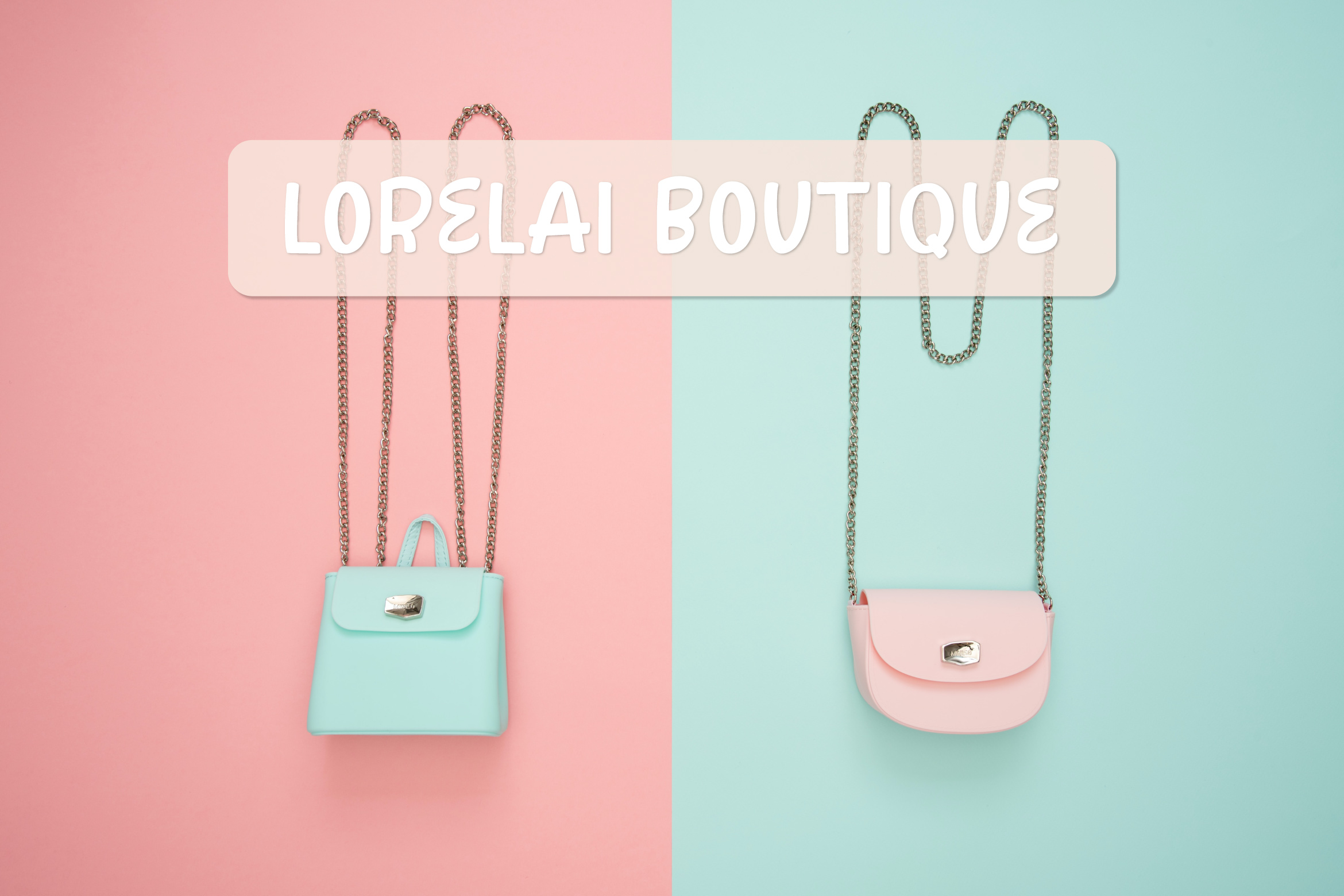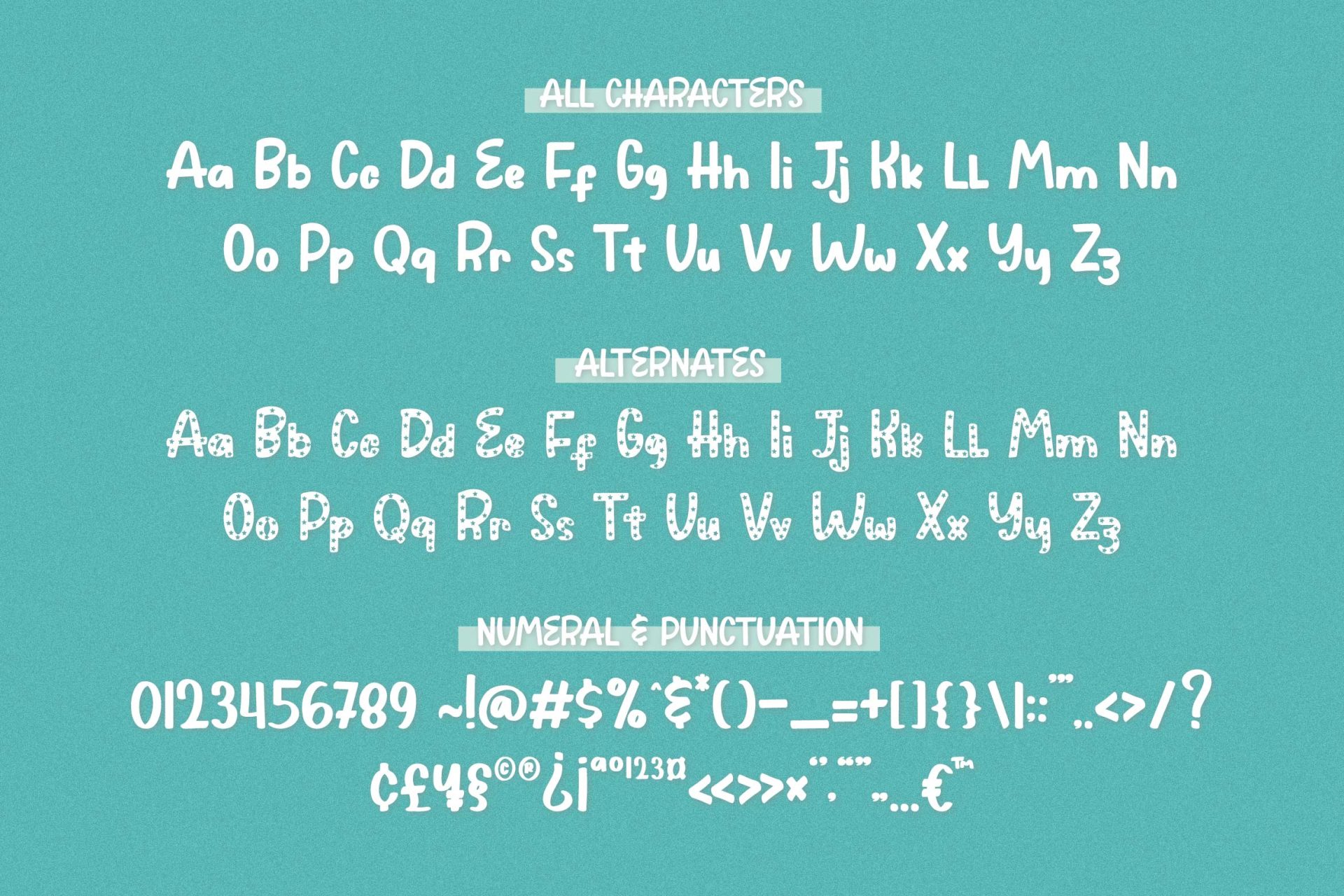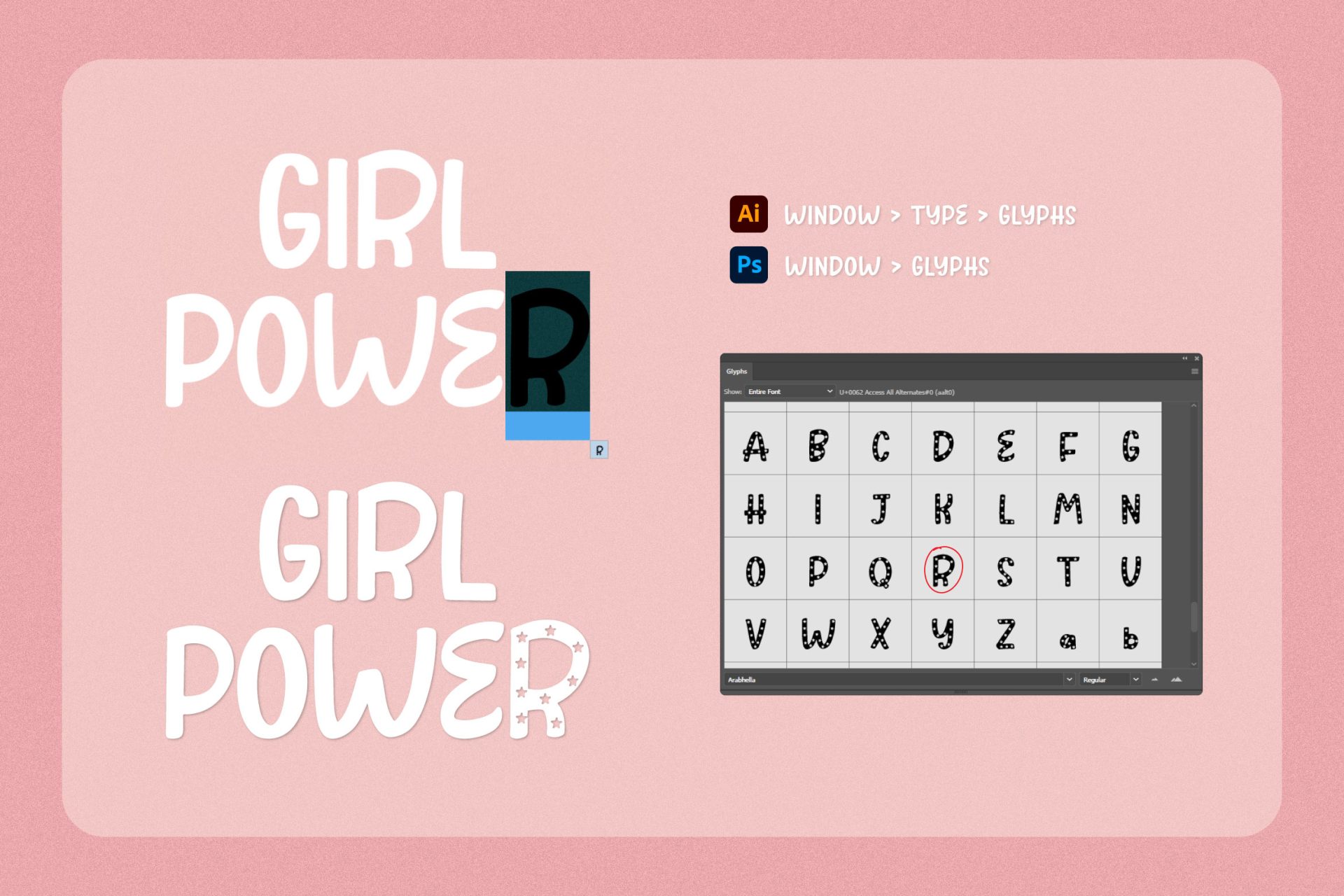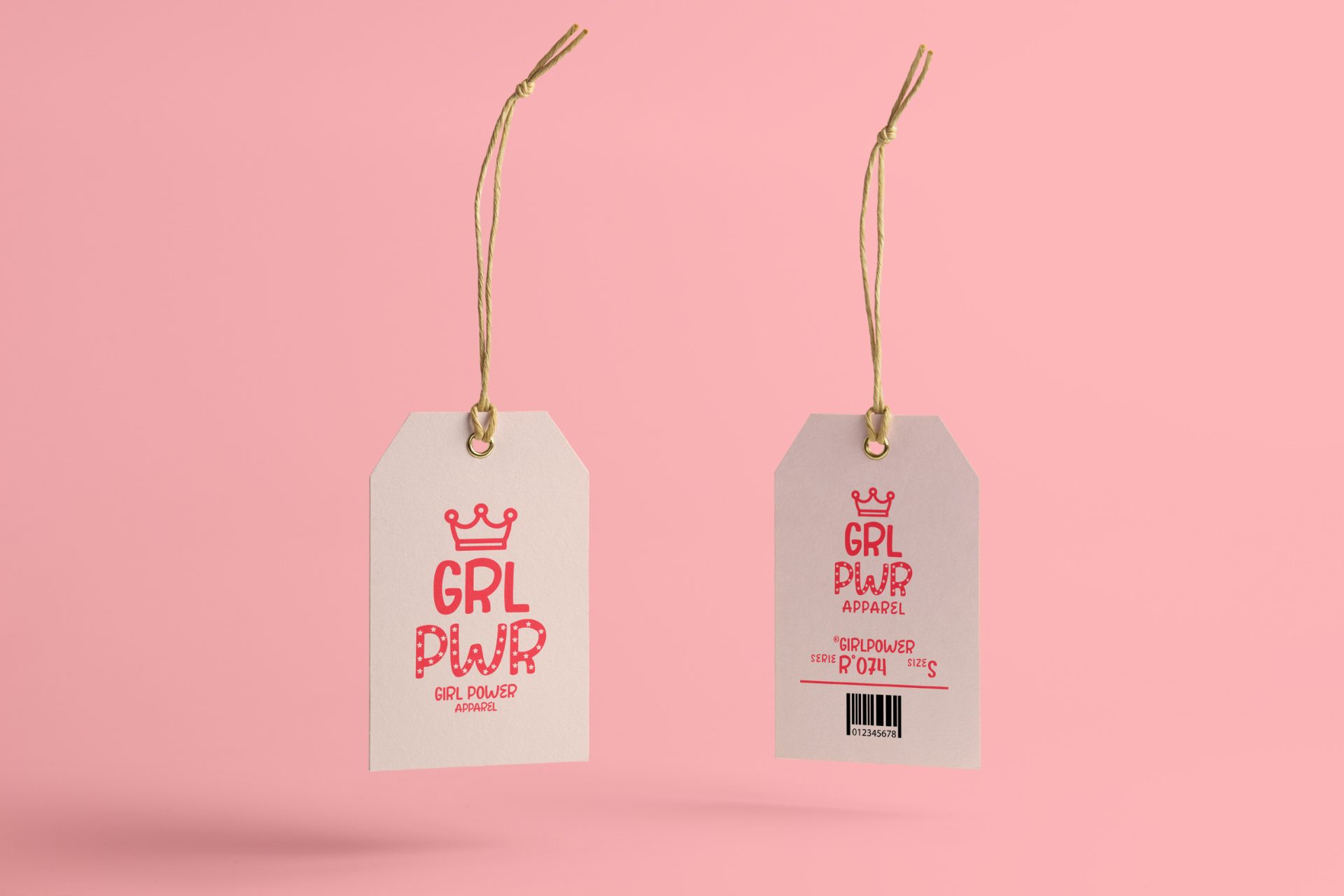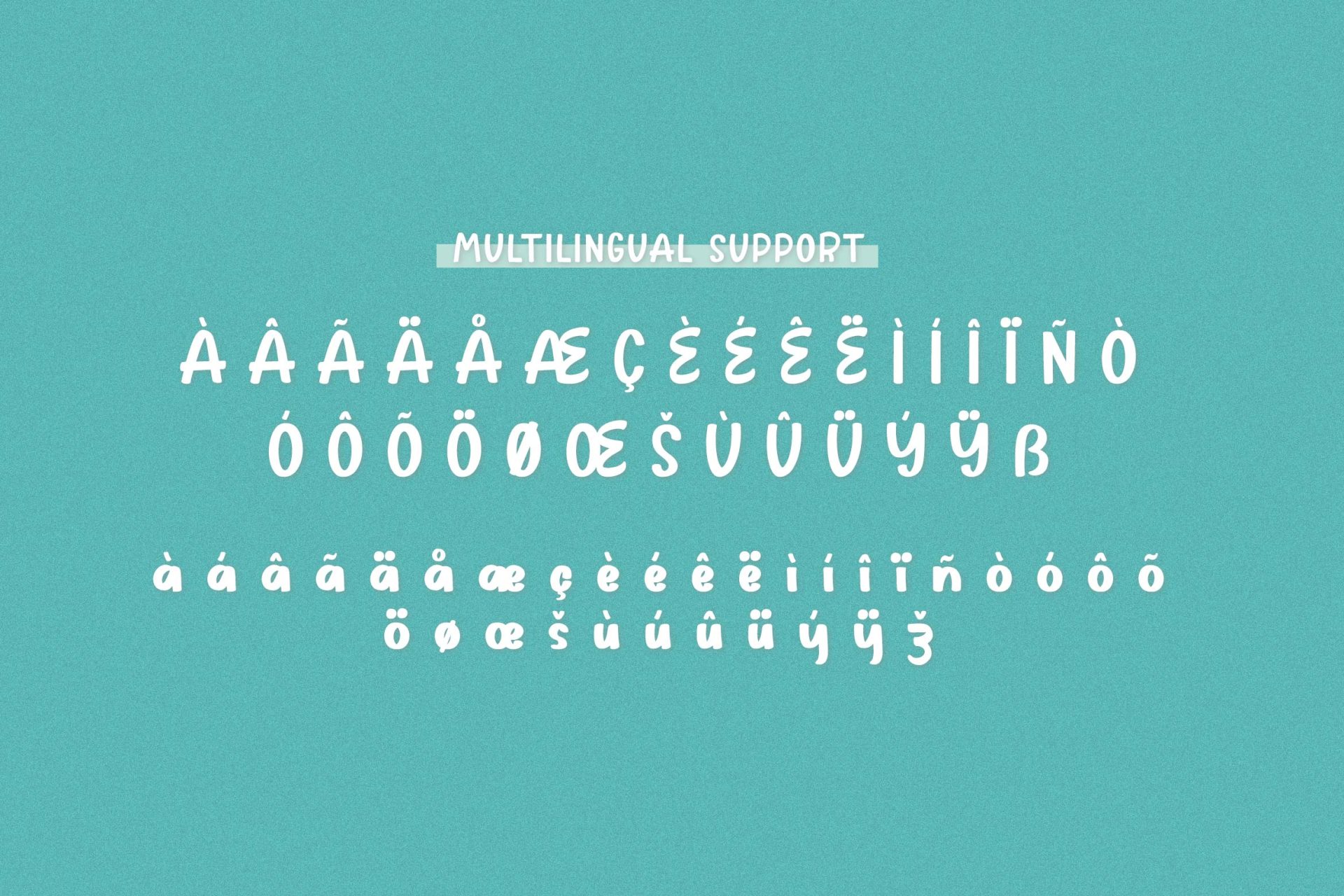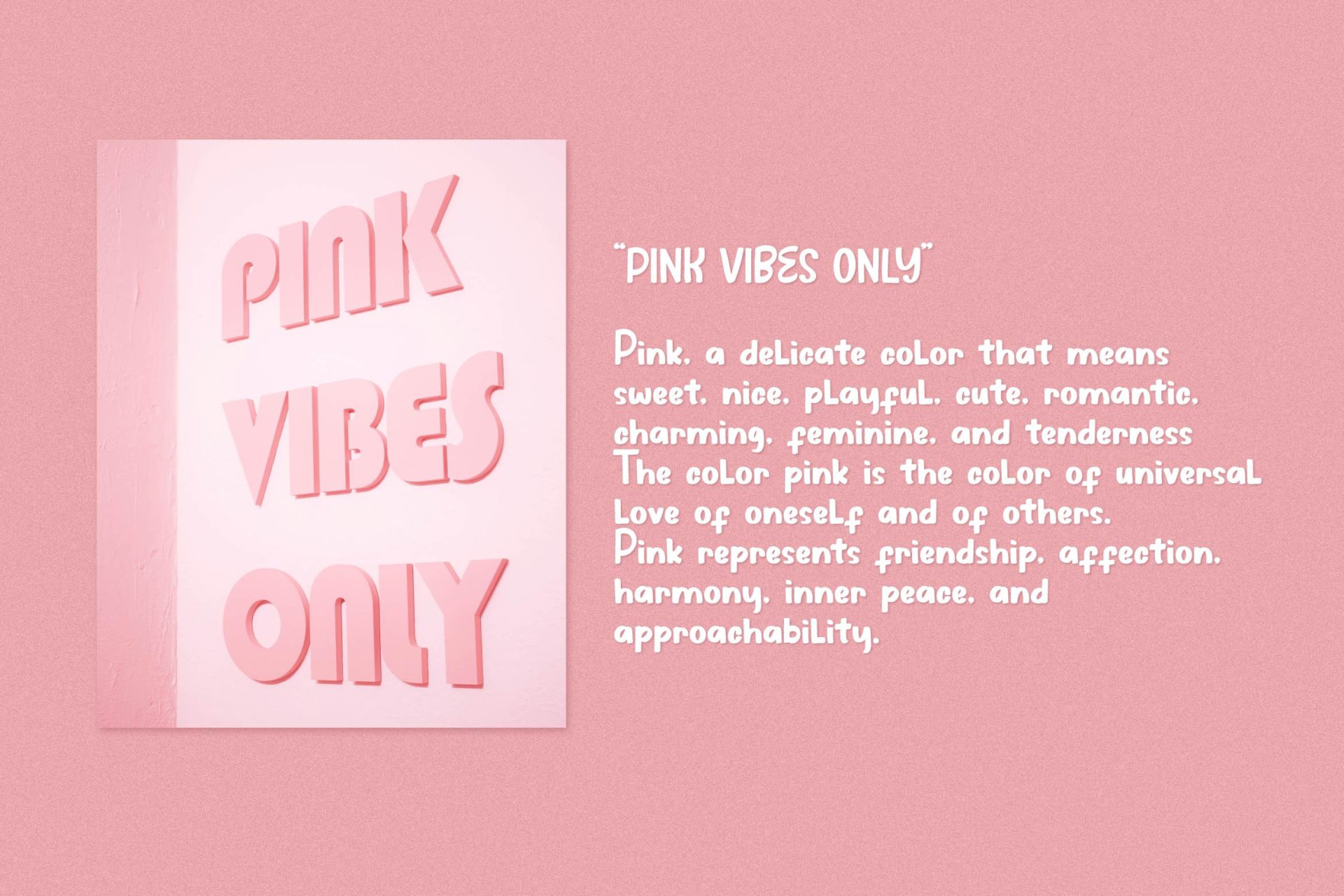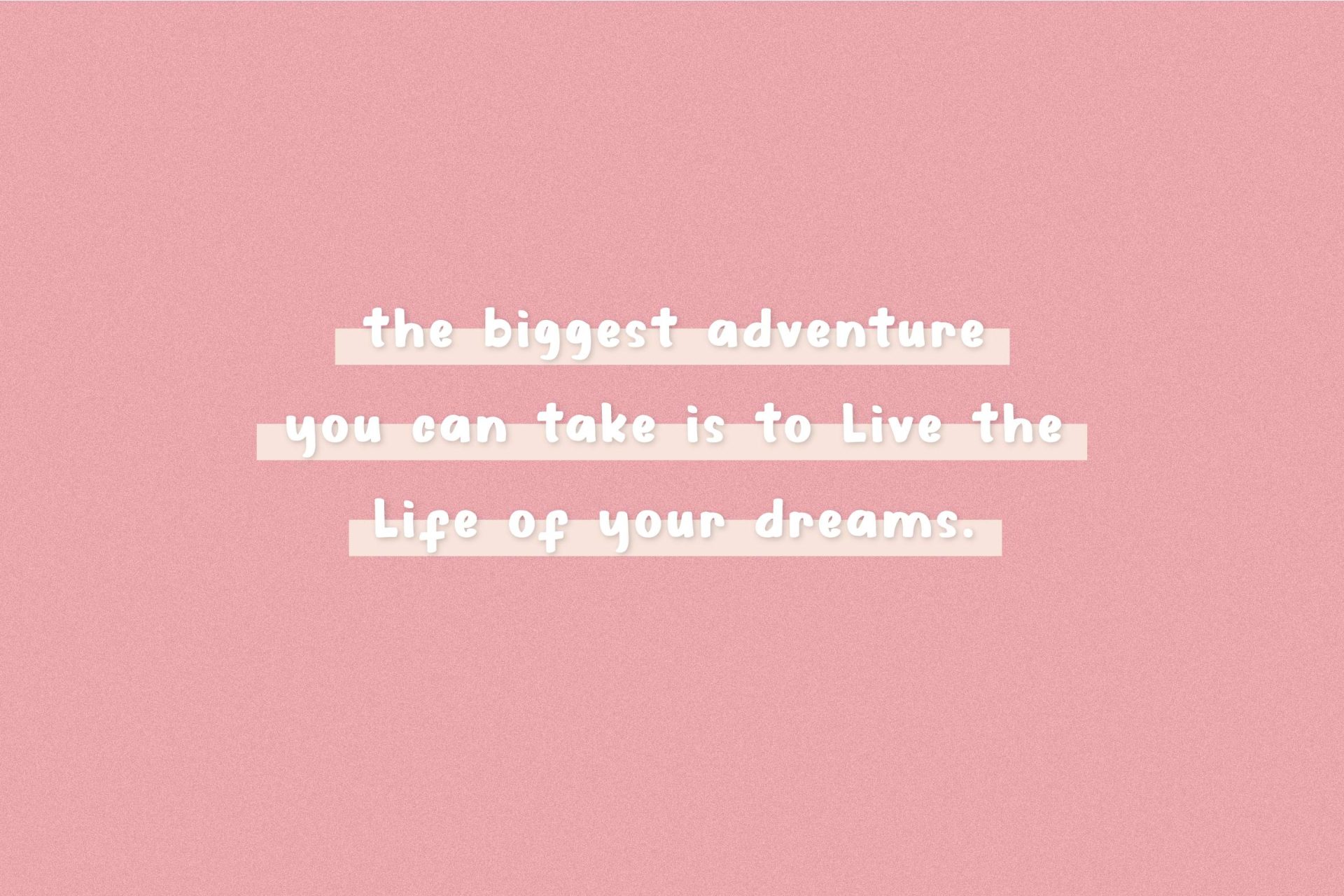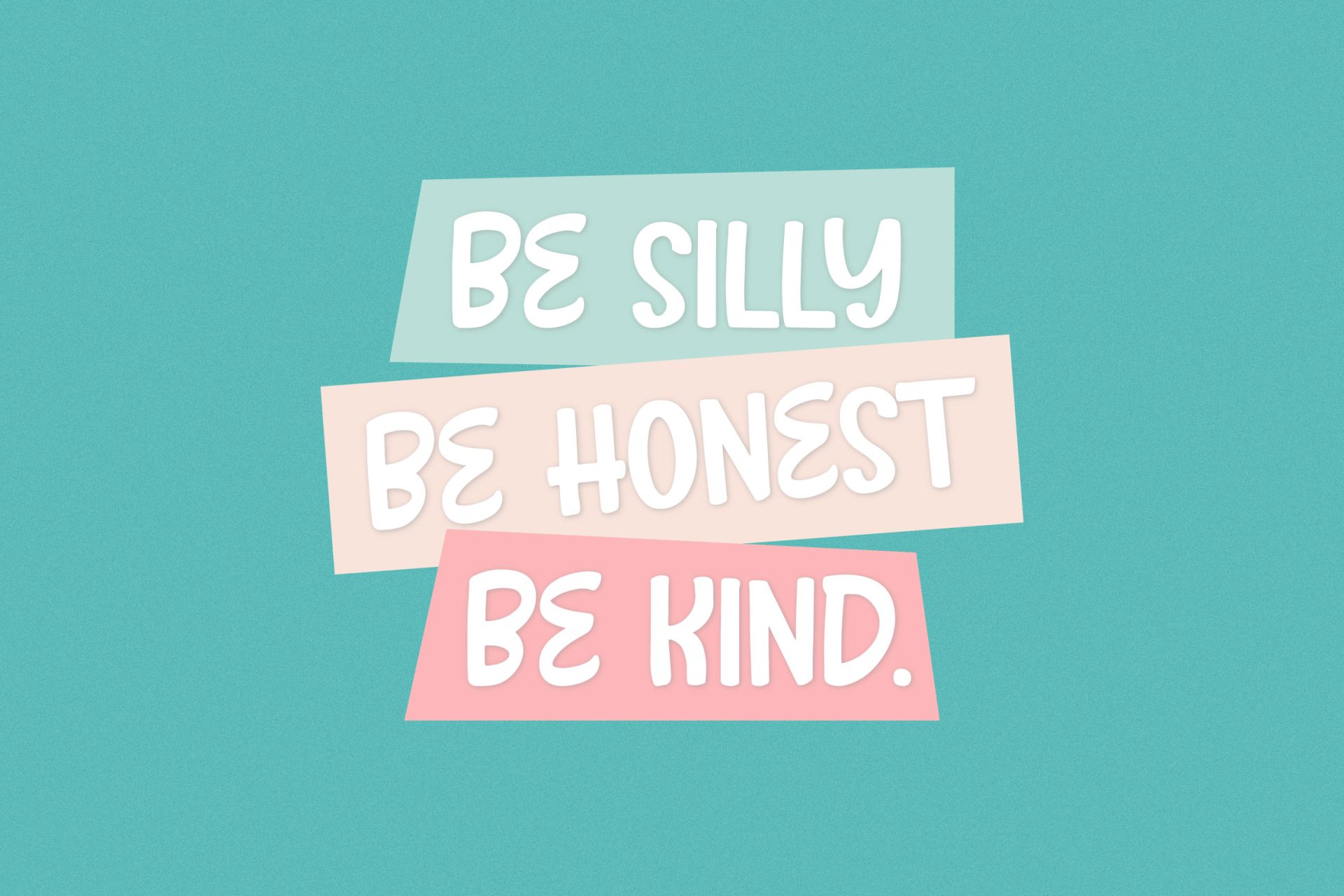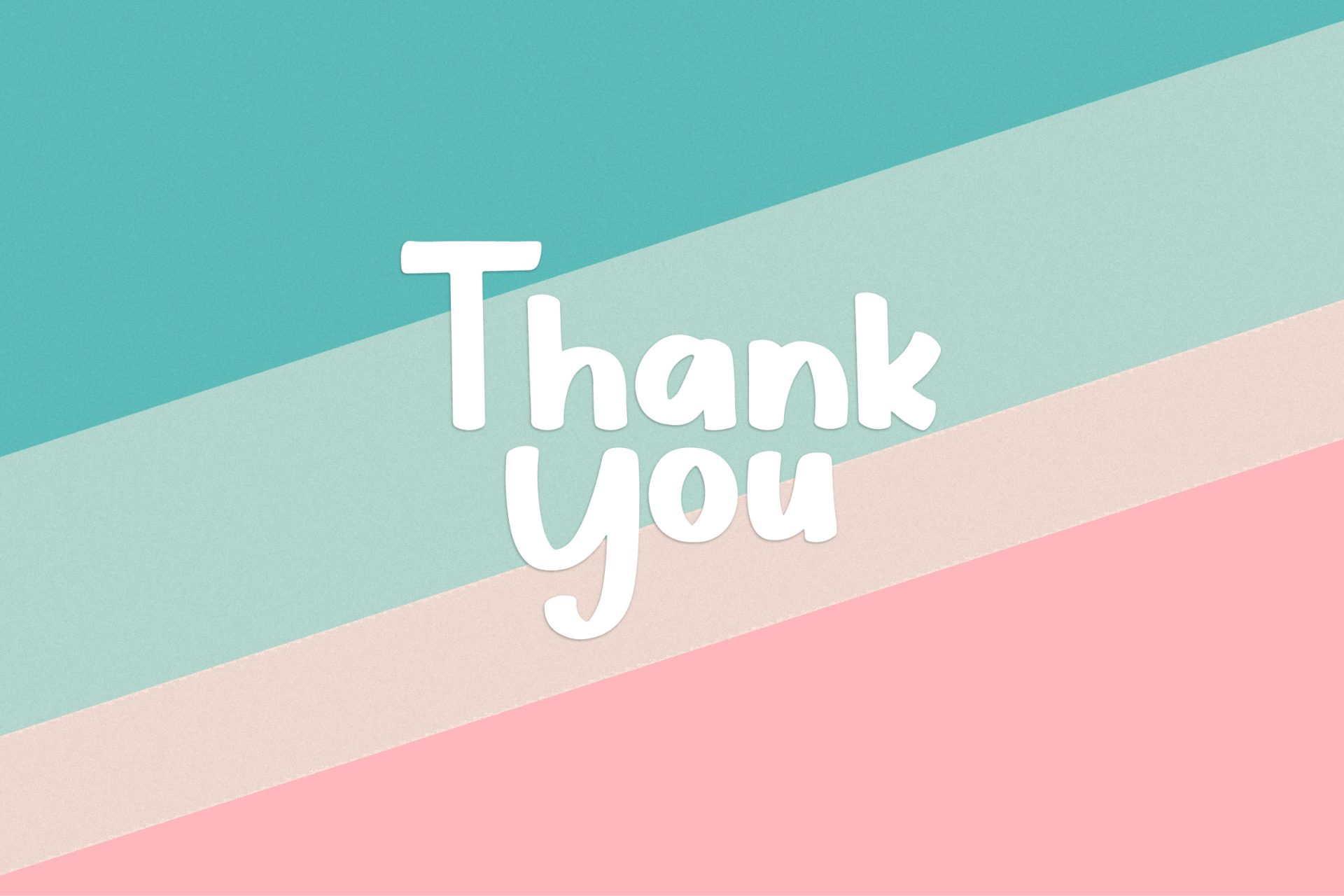
Arabhella – Display Font by KrakenBox
Arabhella is a cute and fun handwritten font. Its cool, playful & kids look makes it a fantastic choice for fashion, signature, album covers logos, branding, magazines, social media posts, advertisement, and many more. Use this display font to add that special cool touch to any design idea you can think of!